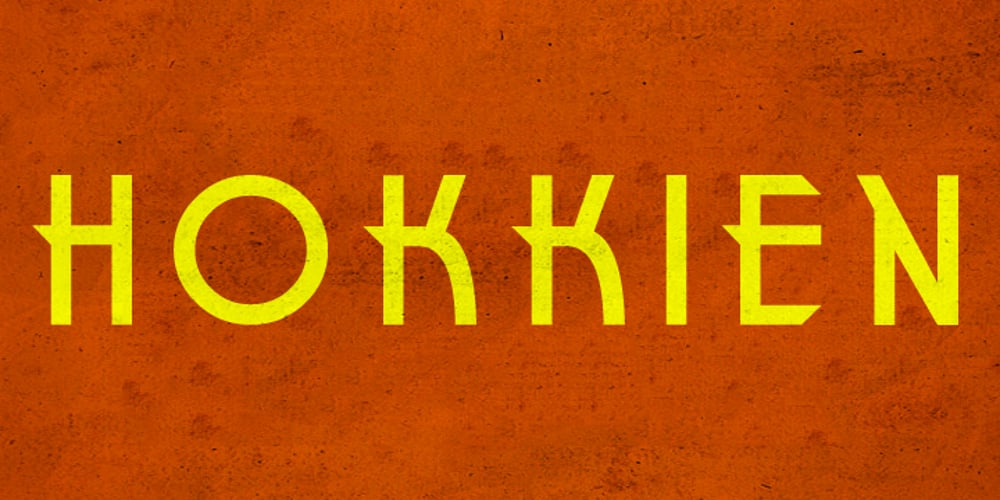
Hokkien Font Family was designed by published by AdultHumanMale. Hokkien contains 1 styles and family package options. HOKKIEN is an all caps sister to my other font Penang. It was inspired by some old pieces of Art Deco signage I had discovered in Penang Malaysia, The font is available in one weight for now. The font is loaded with plenty of foreign extras and currency symbols. I have also included an alternate cap S which works better visually in blocks of copy.